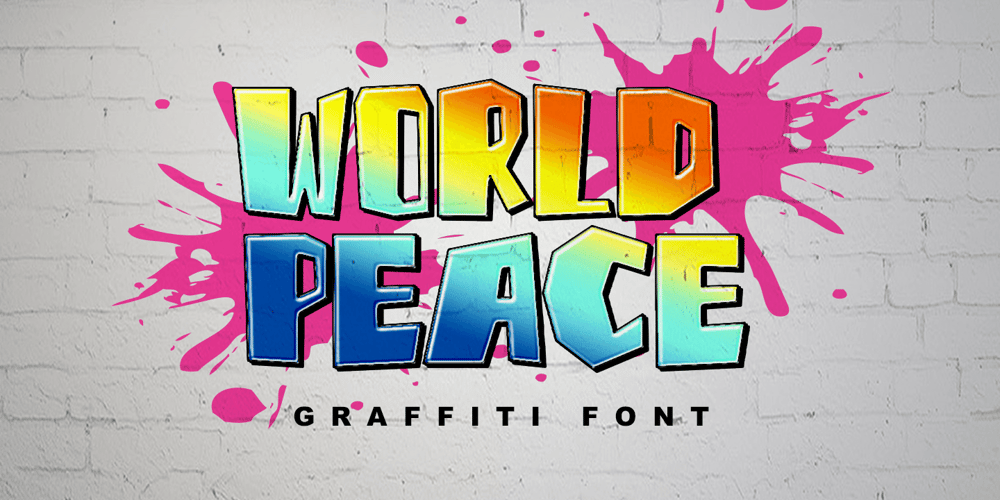
World Peace Font Family was designed by Thomas Aradea and published by Letterara. World Peace contains 2 styles and family package options. World Peace is a wildstyle outstanding graffiti display font. Urban and incredibly bold, this font will most certainly make your designs stand out. It will add a unique spark to any design project that you wish to create! This font is PUA encoded which means you can access all of the amazing glyphs and ligatures with ease!